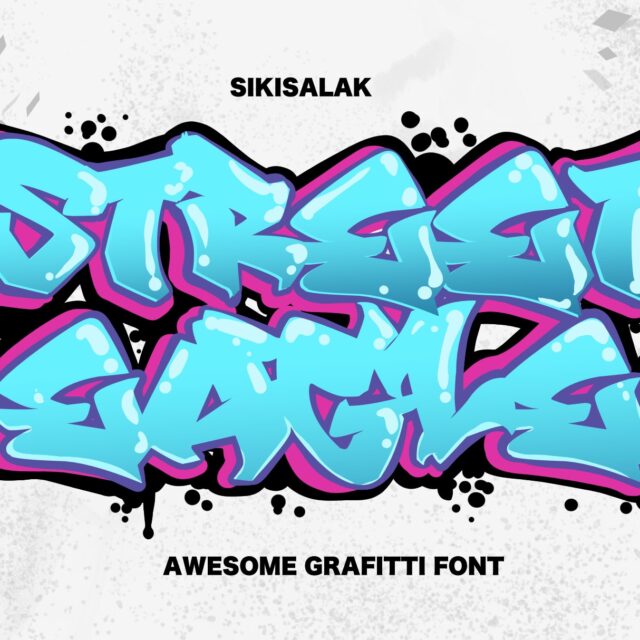
About Street Eagle
“Street Eagle” is a graffiti font characterized by thick letterforms. Fonts like this are often used to create a bold, striking, and stylish text in designs. The thick letter characters can emphasize the message in your design and are commonly used in street art, posters, or other designs that require strong and attention-grabbing typography.
With “Street Eagle,” you can add an urban and bold touch to your design projects, often used to highlight a strong message in your design.